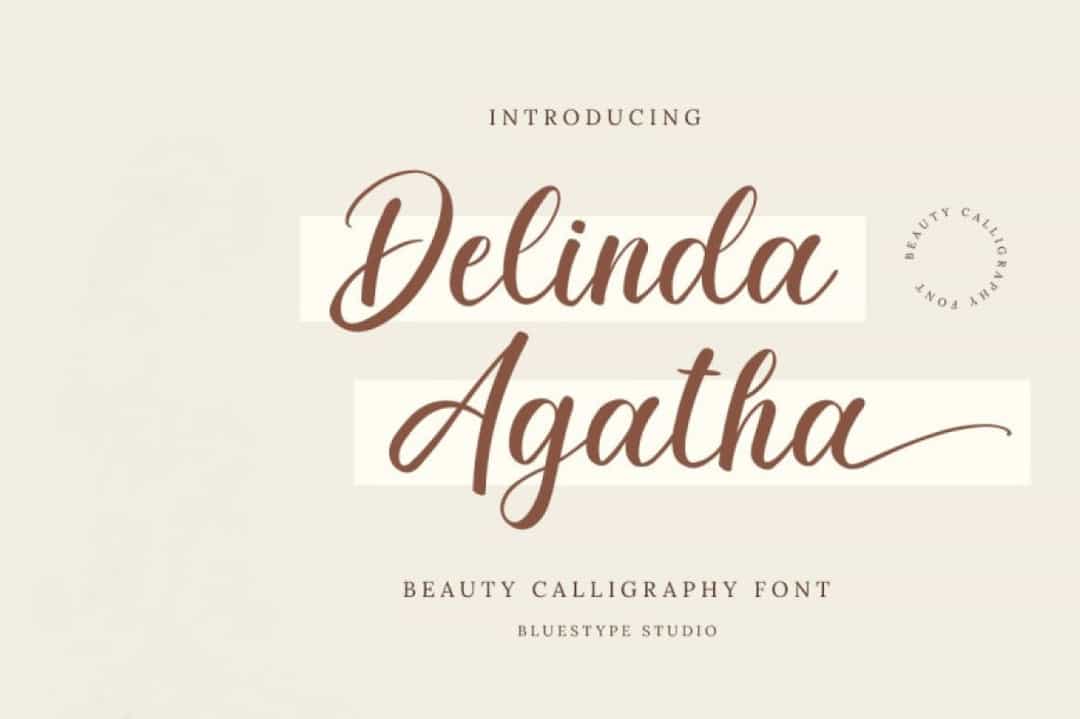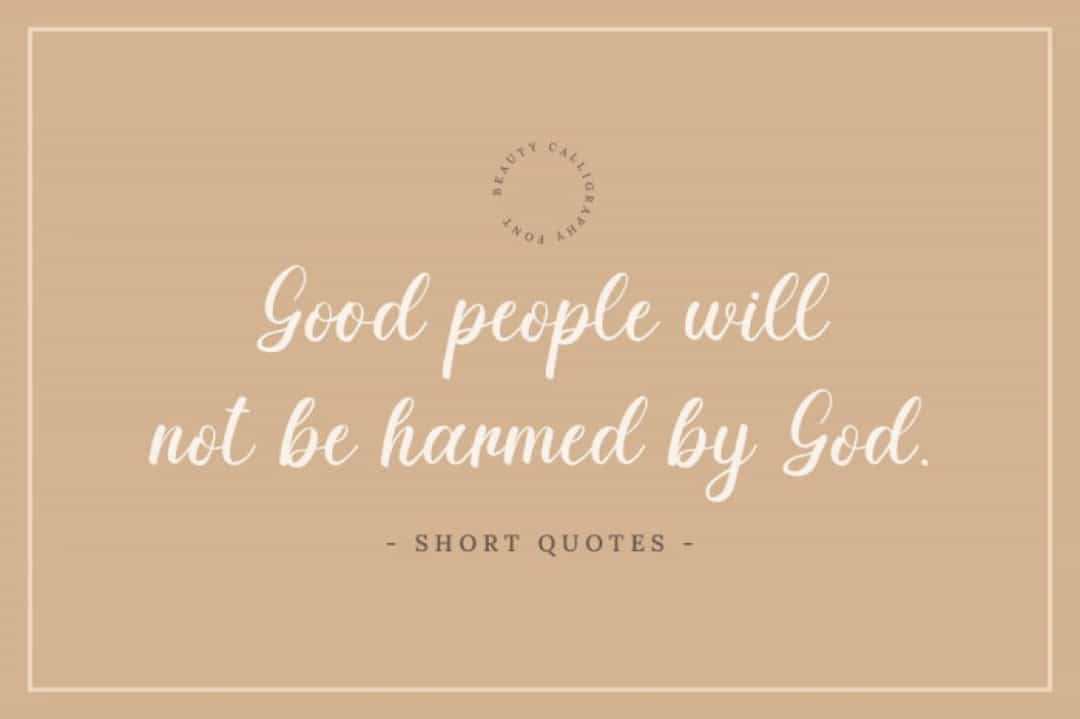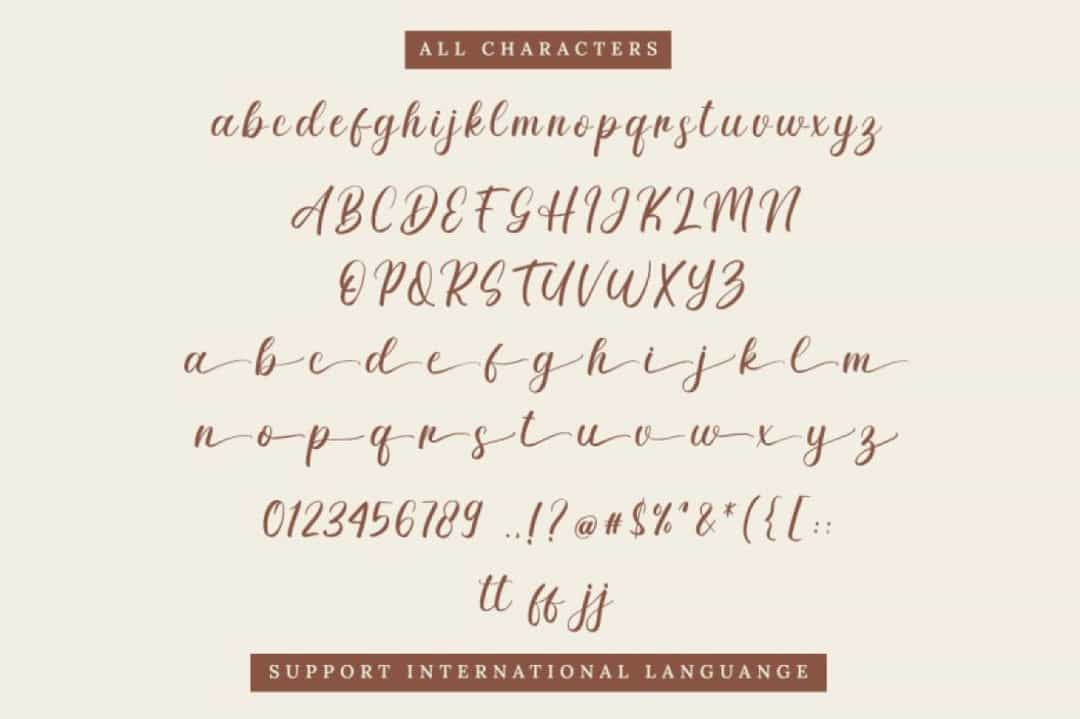
Delinda Agatha Font is an effortless yet beautiful script calligraphy font with an authentic yet raw aesthetic that you are sure to fall in love with! Perfect for weddings, branding projects, T-shirt designs, magazine covers, logotype letters quotes invitations watermarks.